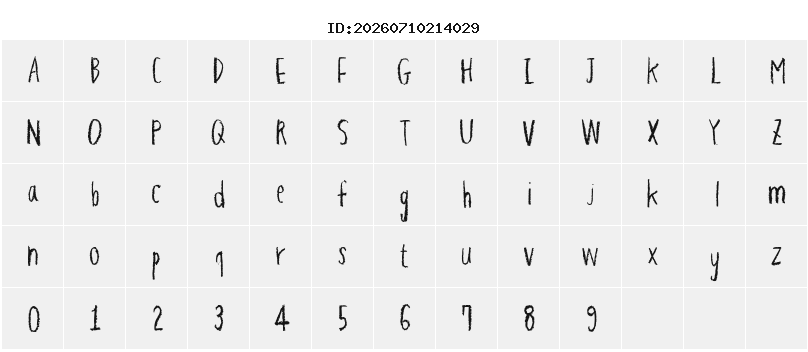
• Font Name: Hapole Pencil
• Font ID: Hapole Pencil Regular
• Full Font Name: Hapole Pencil
About Hapole Pencil.ttf
Hapole Pencil.ttf is a modern, elegant sans-serif font designed for ultimate readability and visual harmony. Perfect for branding, headlines, web design, and print materials.